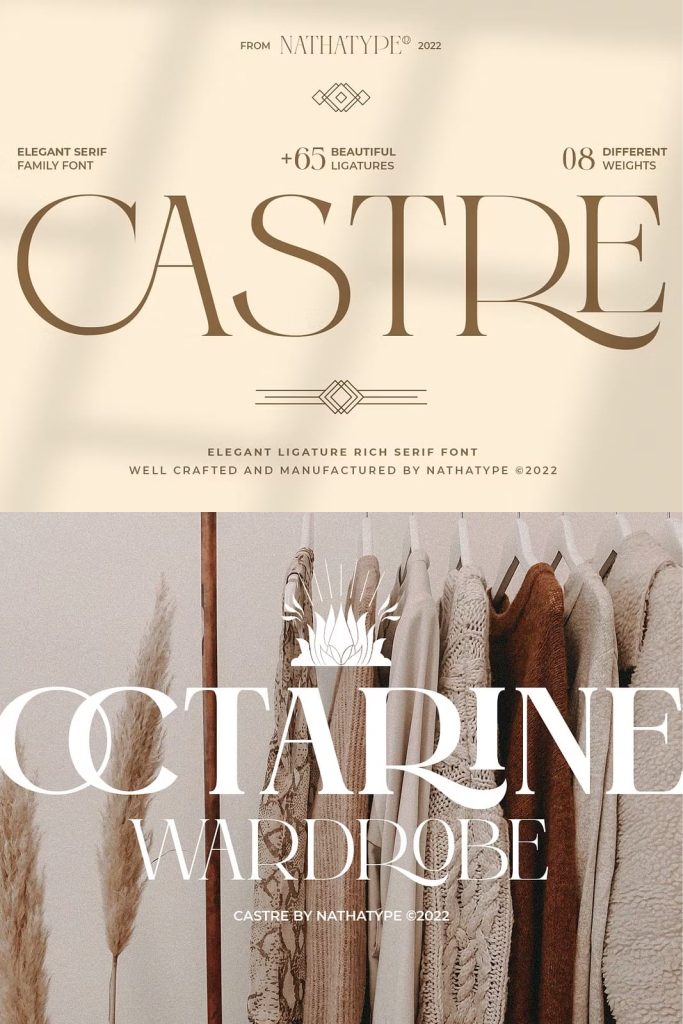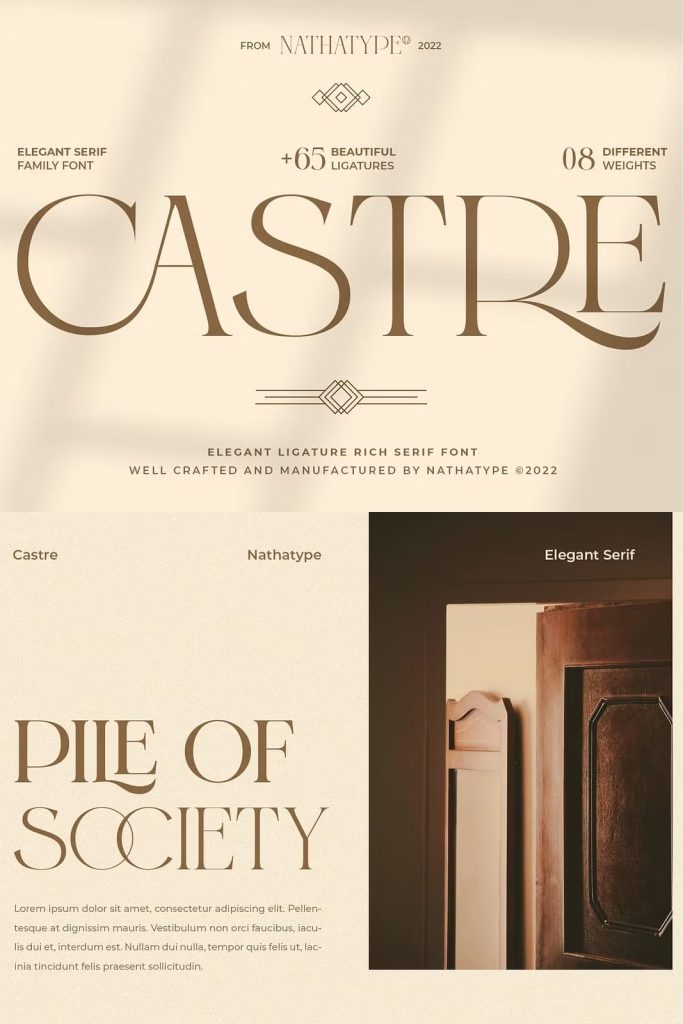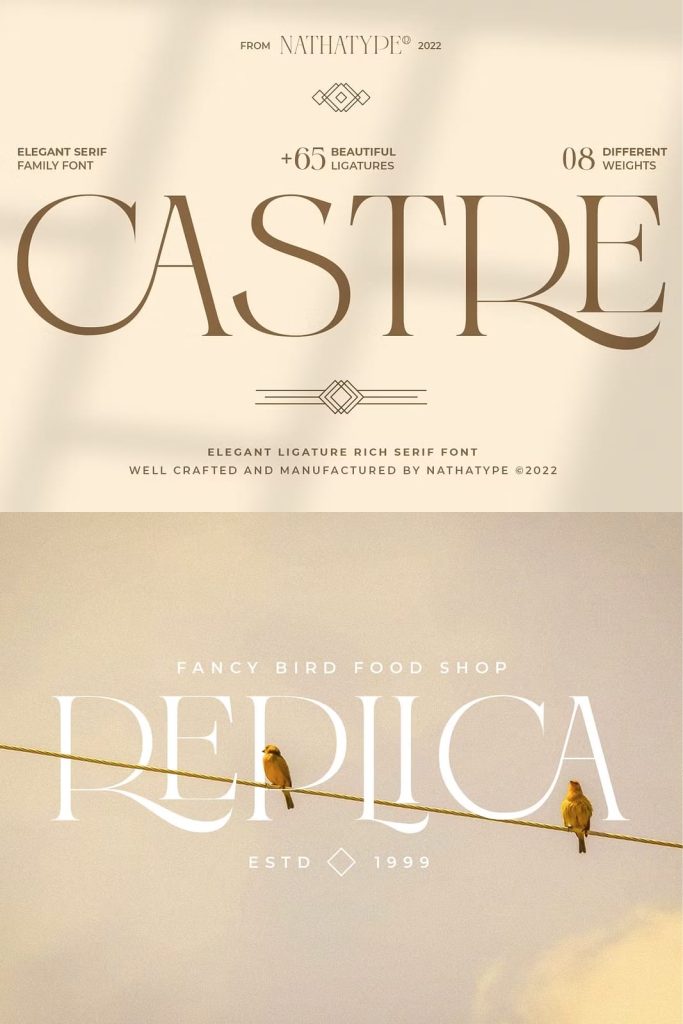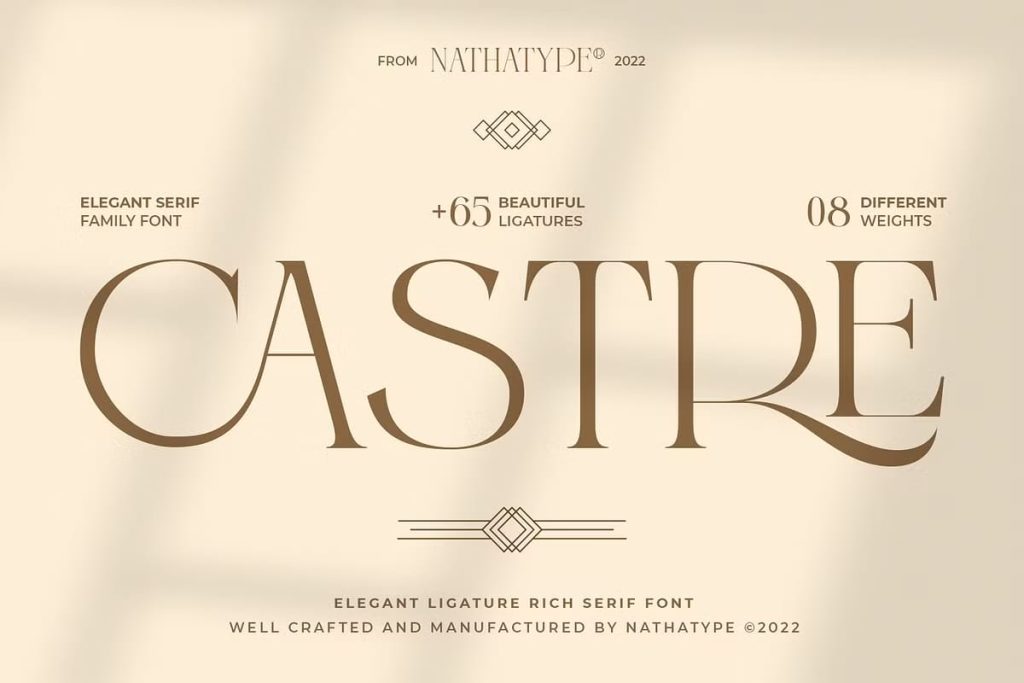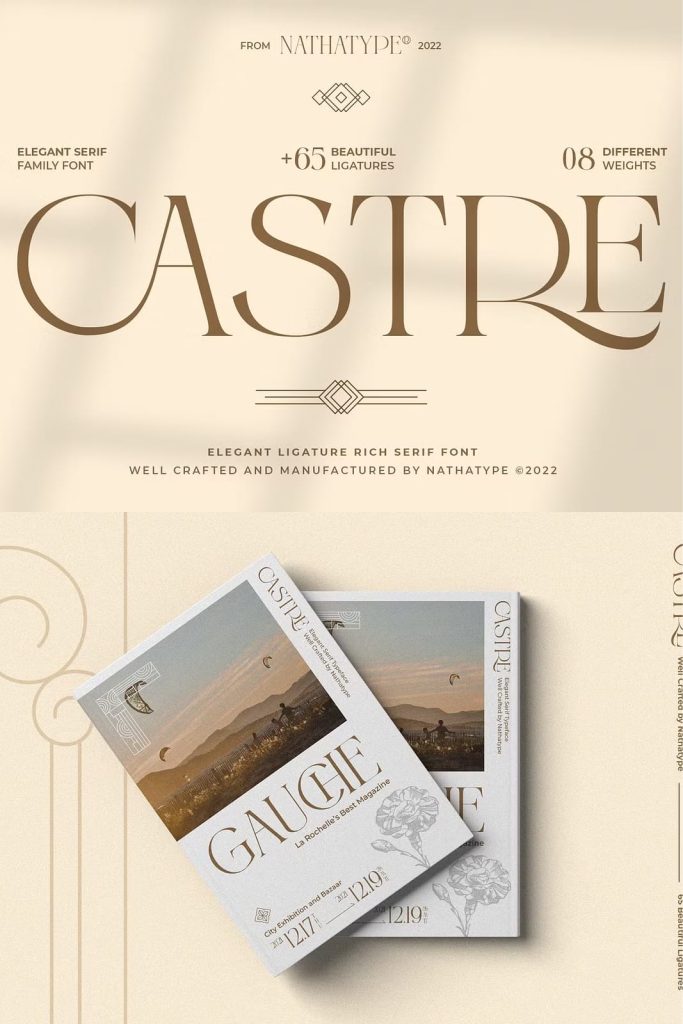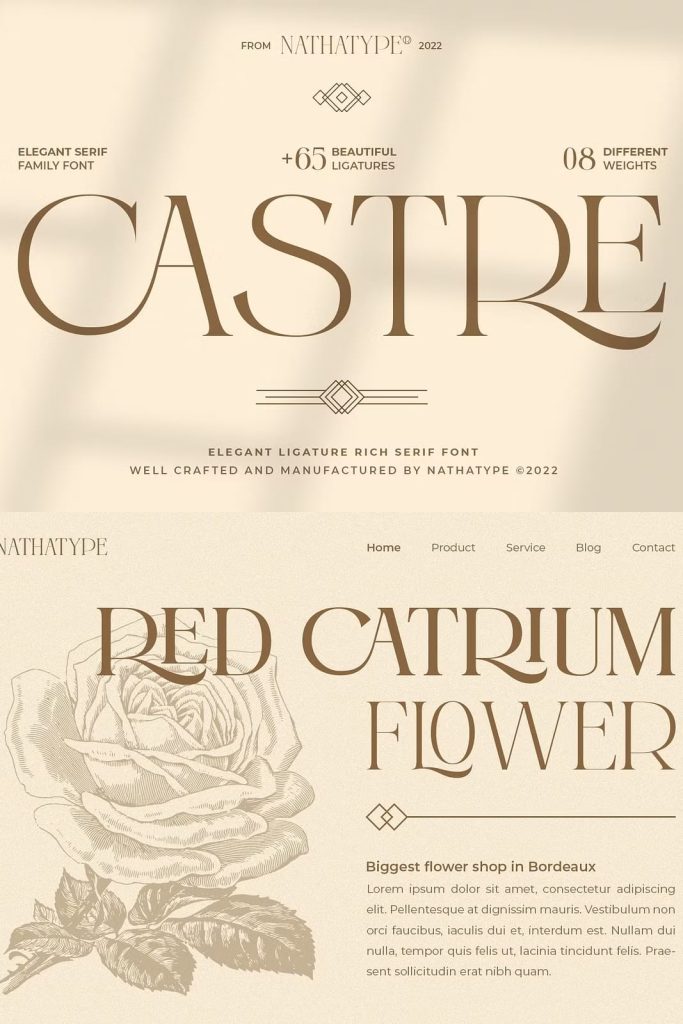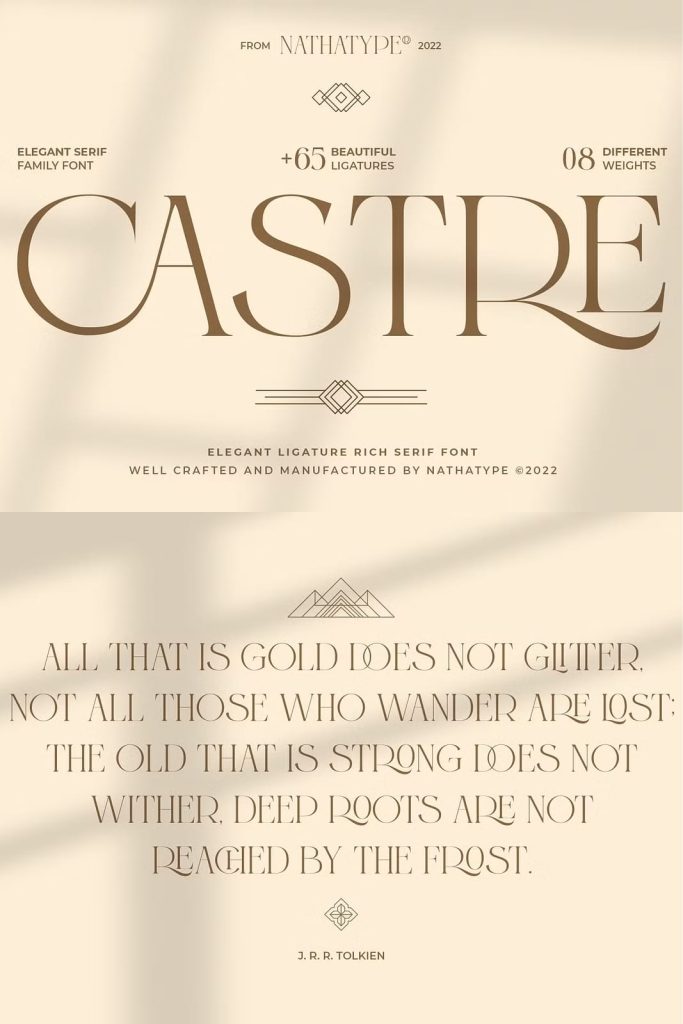
Be a trendsetter and stand out with bold and sophisticated style font. The epic Castre.
Castre is a serif font family to better charm your designing experiences. This package to please you with a variety of choices for your own project consisting of eight different choices of thickness level.
It is designed to be simple and easy to read without losing the modern feels. The uppercases design is paired with thin lines allow us to dive more into the world of modernity.